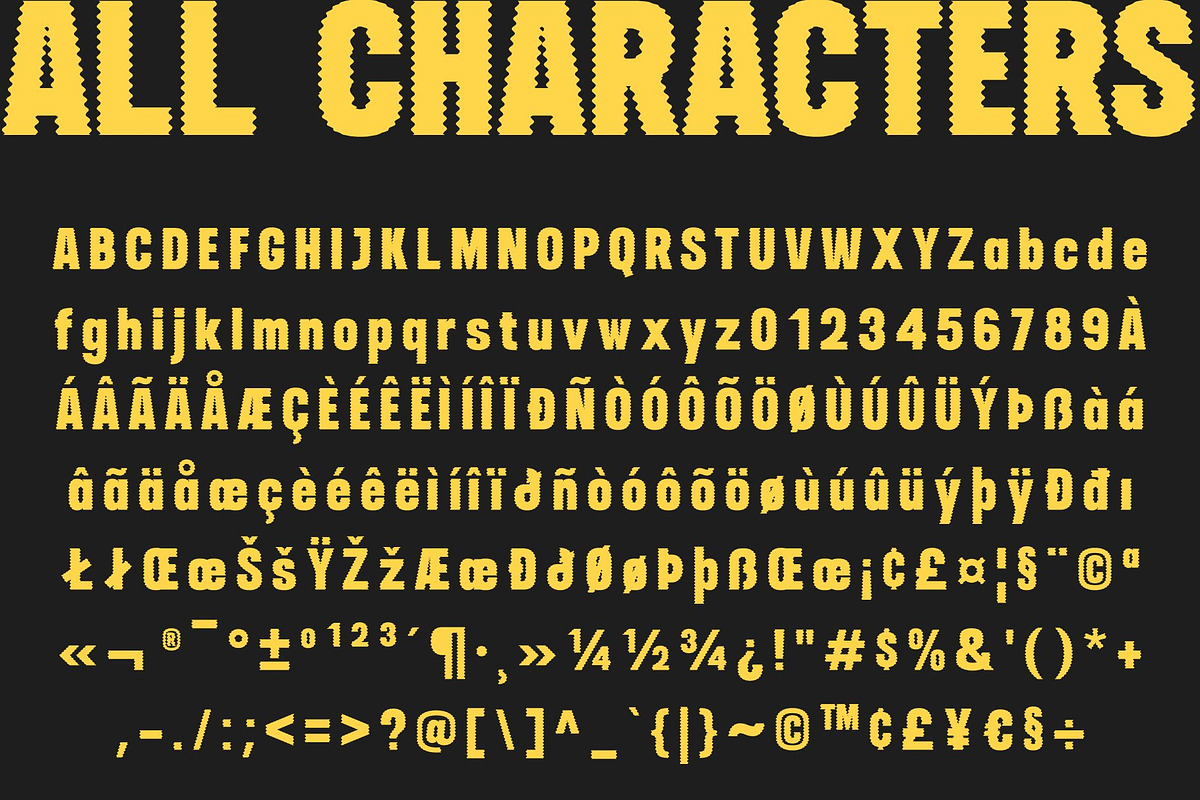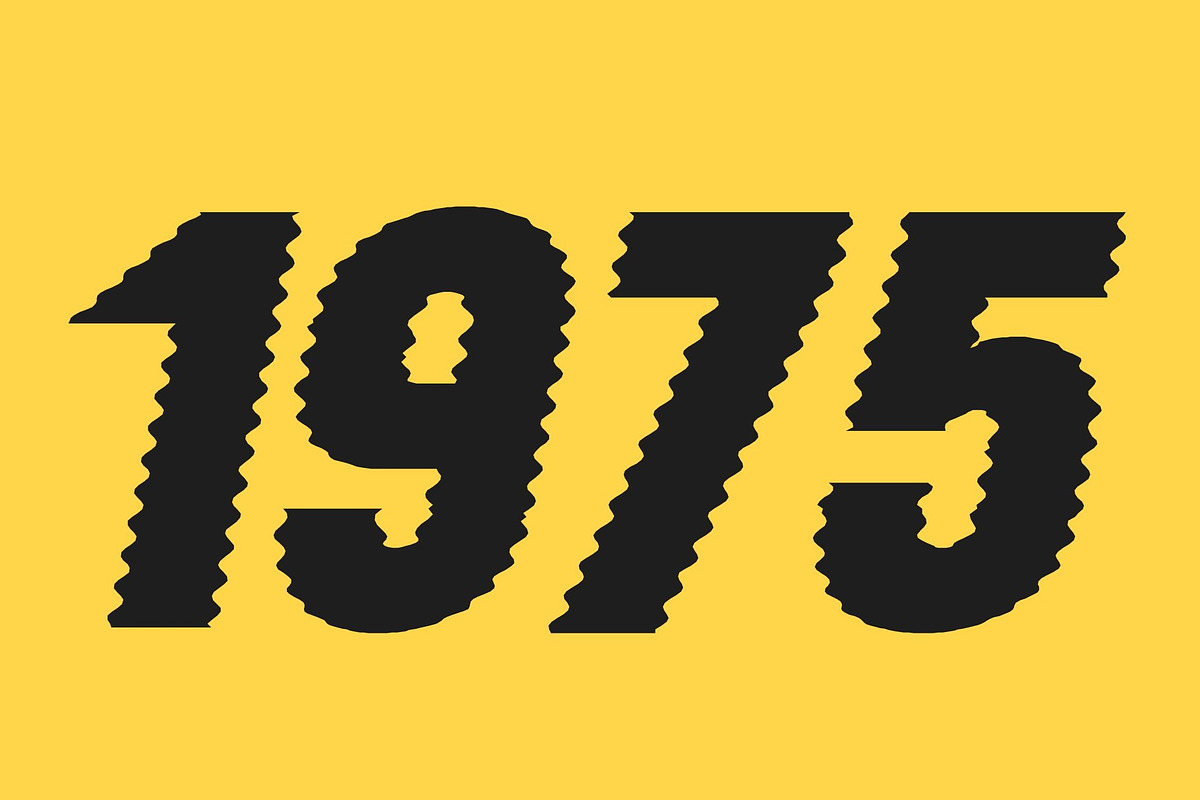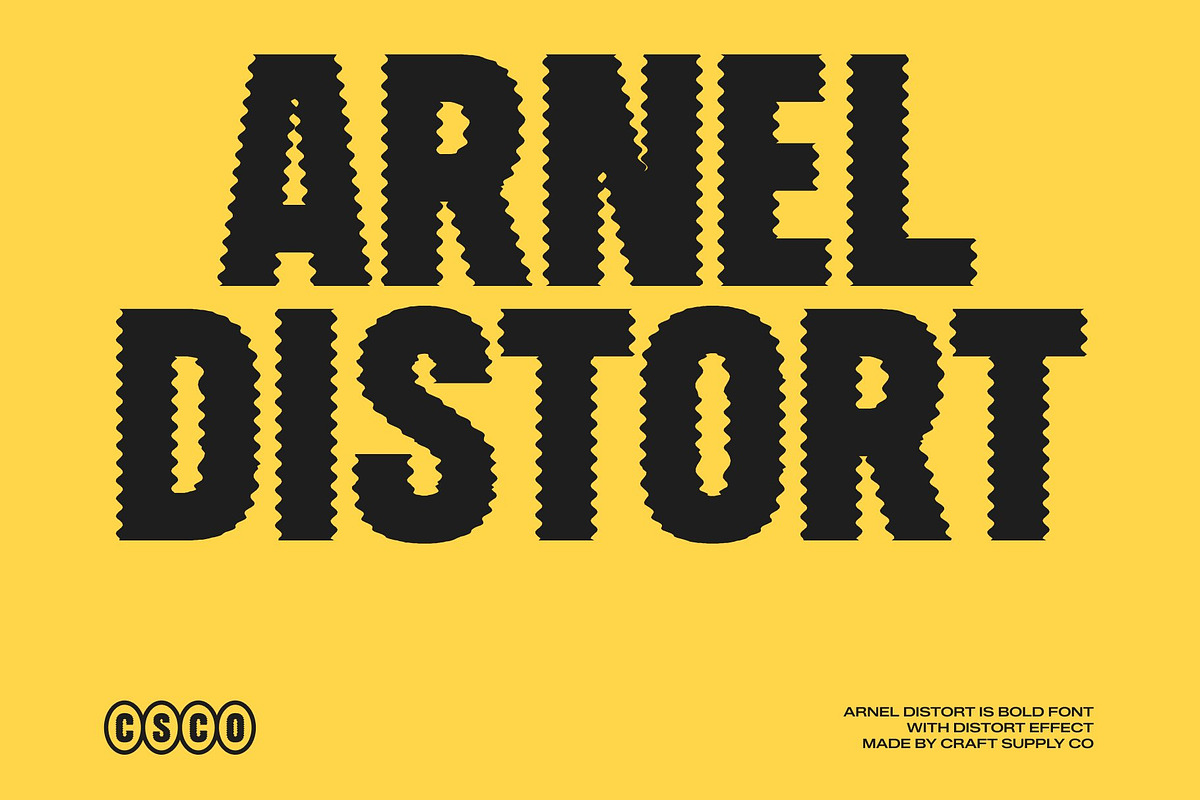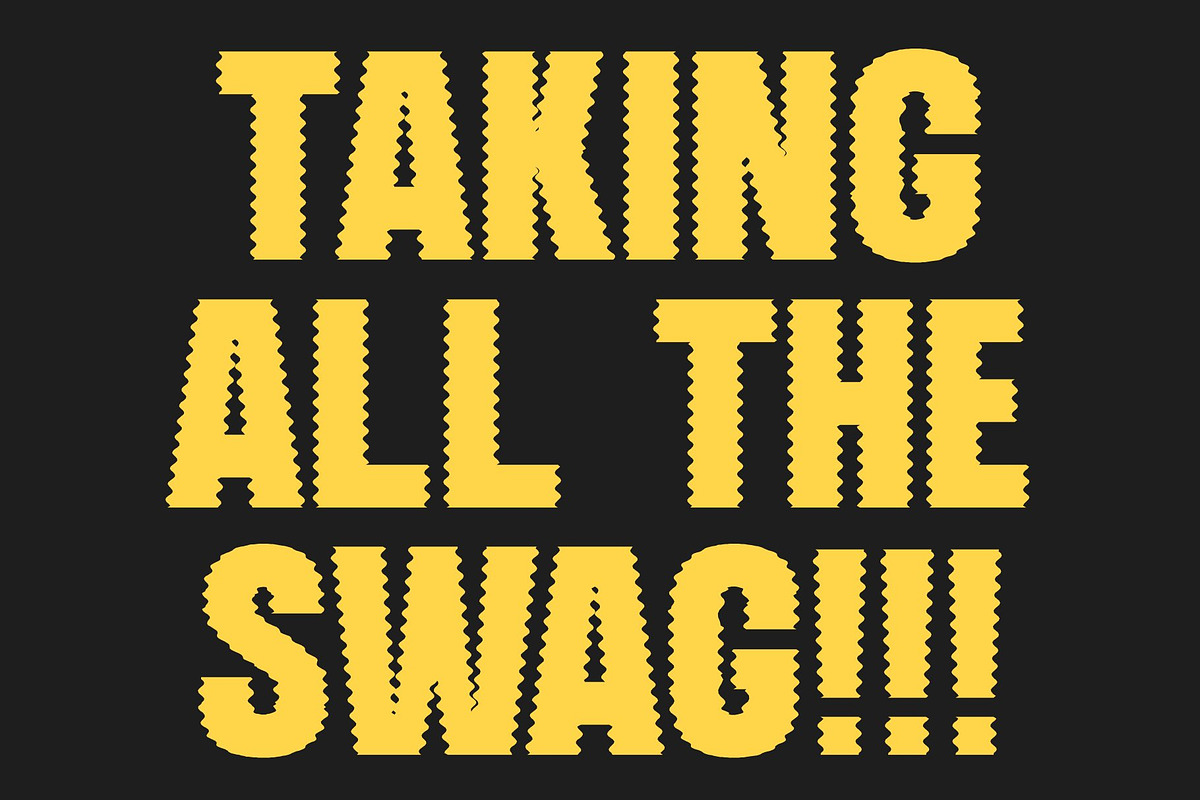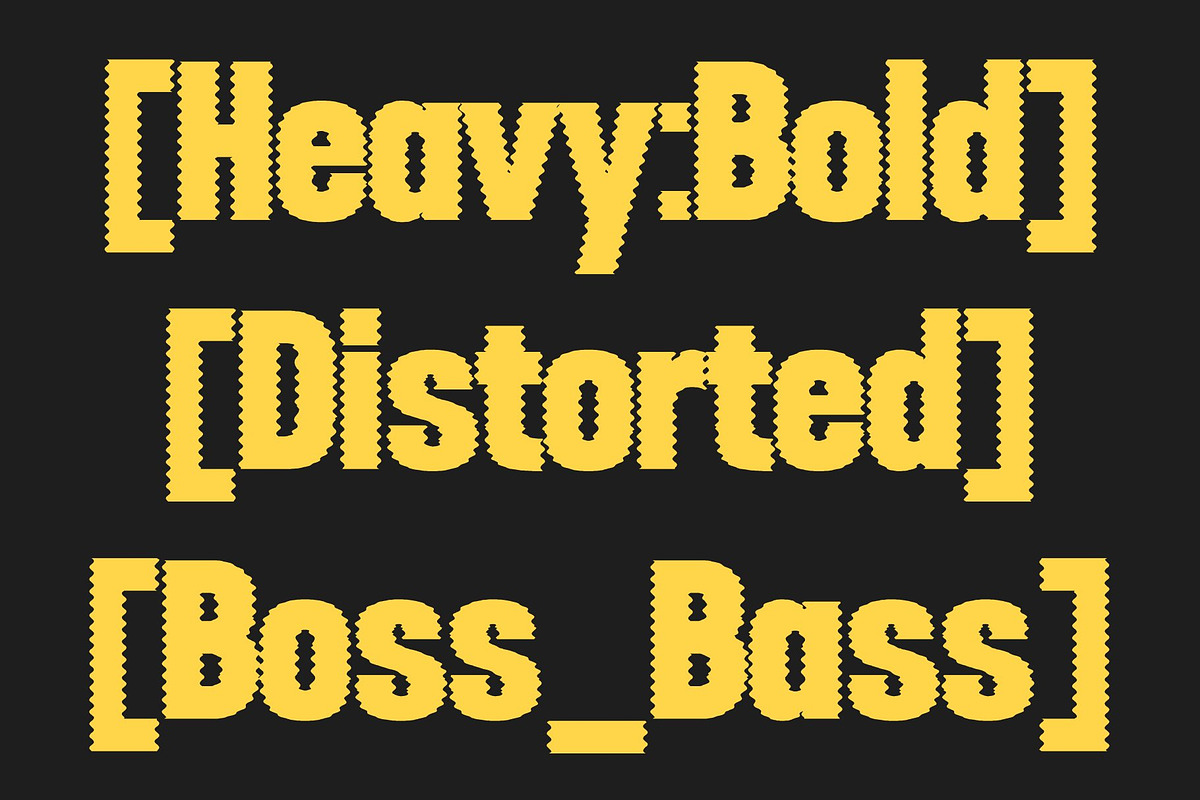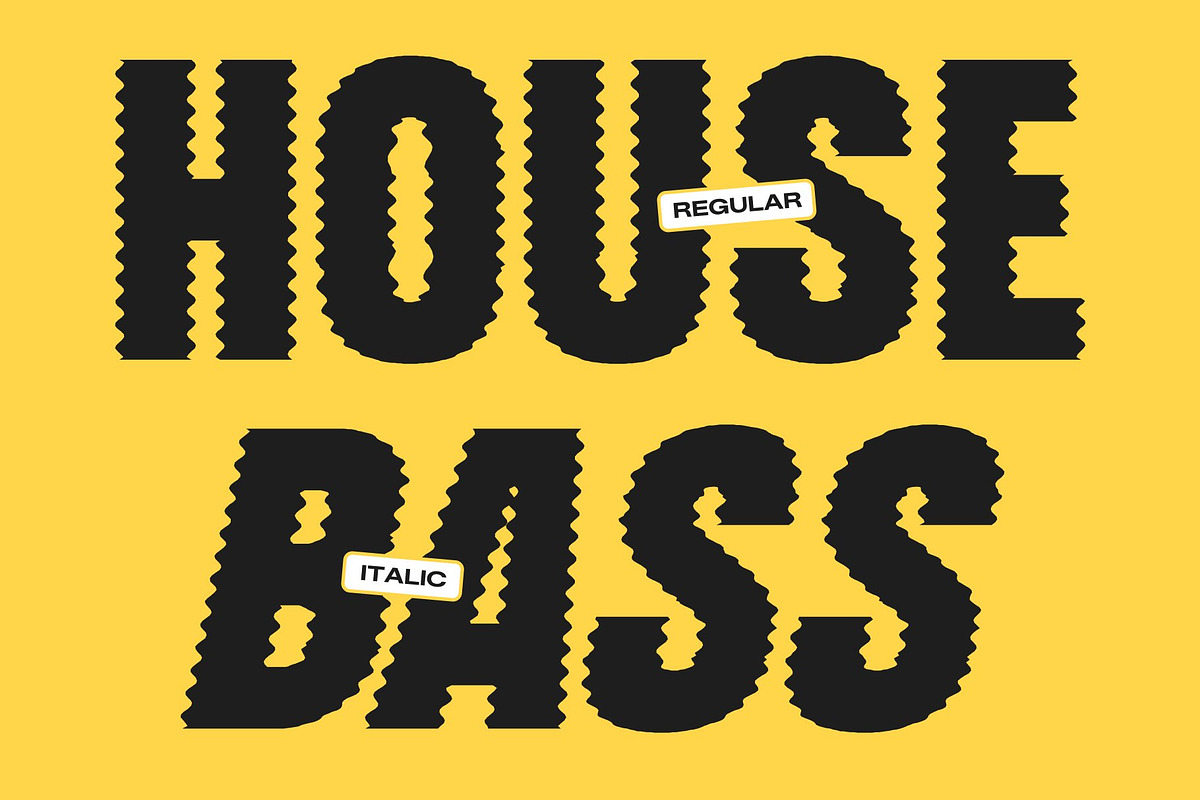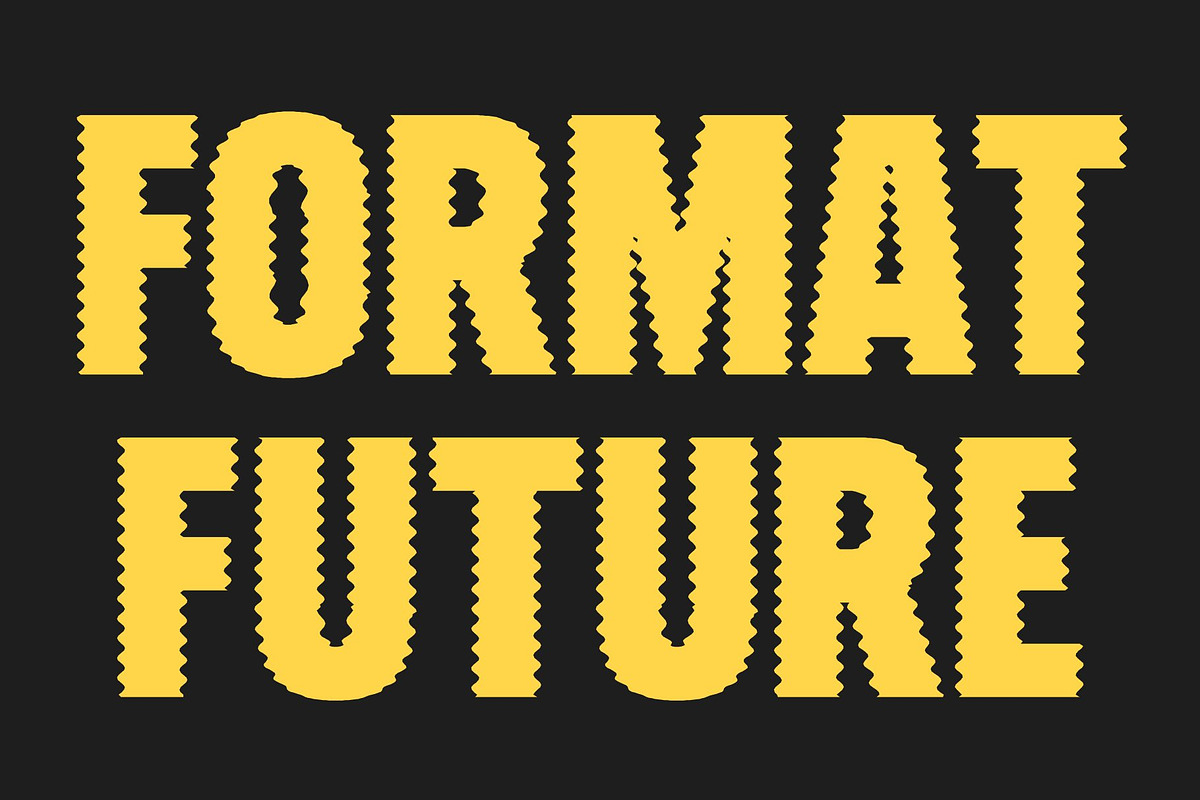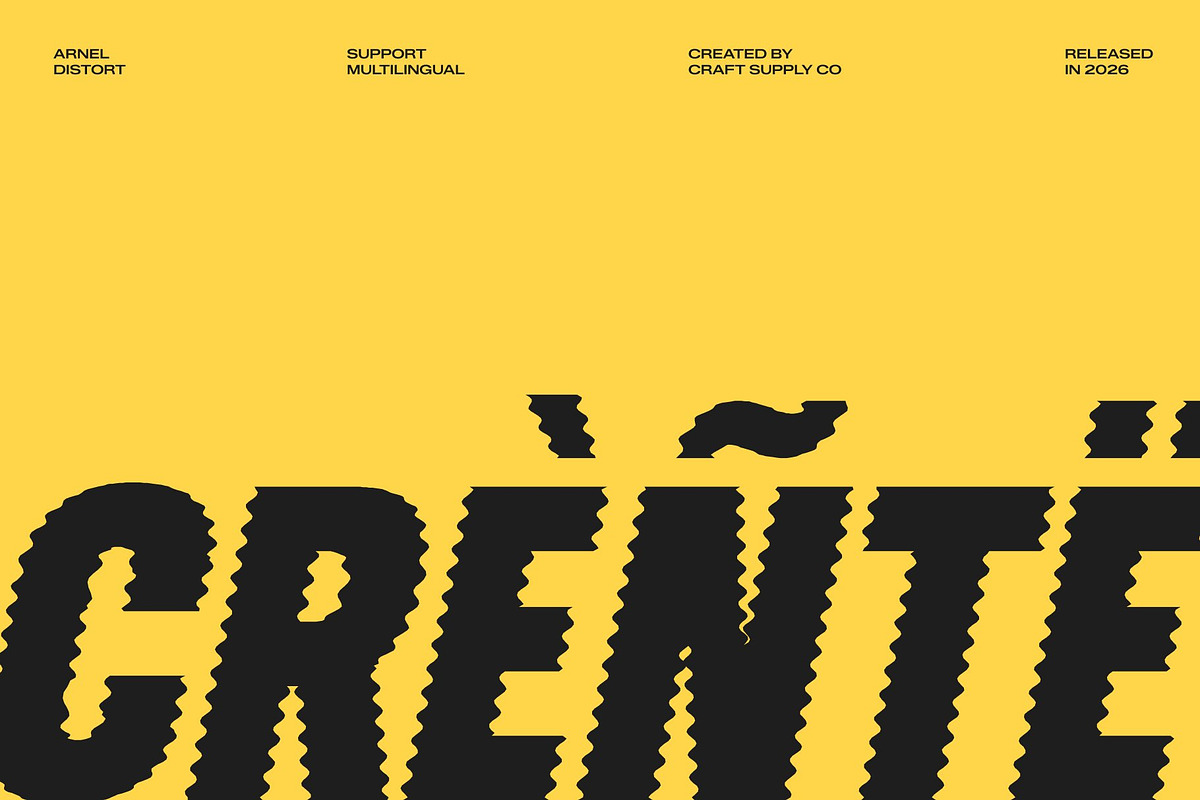
Arnel Distort
Arnel Distort – Bold Sans Serif Display Font: Where Powerful Strength Meets Fluid Distortion
Strong Masculine Forms with Commanding Presence This is a bold sans serif display font designed to radiate masculinity, strength, and modern confidence. Its thick letterforms and solid contemporary structure create a commanding visual identity filled with power, clarity, and bold character. Every character feels impactful and assertive, making the font perfect for high-visibility display compositions and attention-grabbing creative projects.
Distort Effect with Dynamic Organic Motion This font features fluid organic contours along the letter edges that create a subtle melting effect. This expressive detailing introduces movement, softness, and artistic visual depth while preserving the font’s bold and refined structure. The result is a dynamic and visually immersive appearance that feels modern, energetic, and creatively expressive.
Bold Modernism with Artistic Edge This font delivers a typographic identity that feels powerful, stylish, and visually striking. Its balance between solid geometric structure and organic motion creates a unique atmosphere ideal for modern branding and impactful visual storytelling.
Perfect for Headlines, Posters, and Bold Branding This font ideal for headlines, posters, branding, advertising campaigns, event visuals, apparel graphics, packaging, and promotional materials that demand strong visual impact. Its fluid distorted forms make it perfect for logos, social media graphics, merchandise, and creative projects that seek a bold, masculine, and unforgettable appearance.